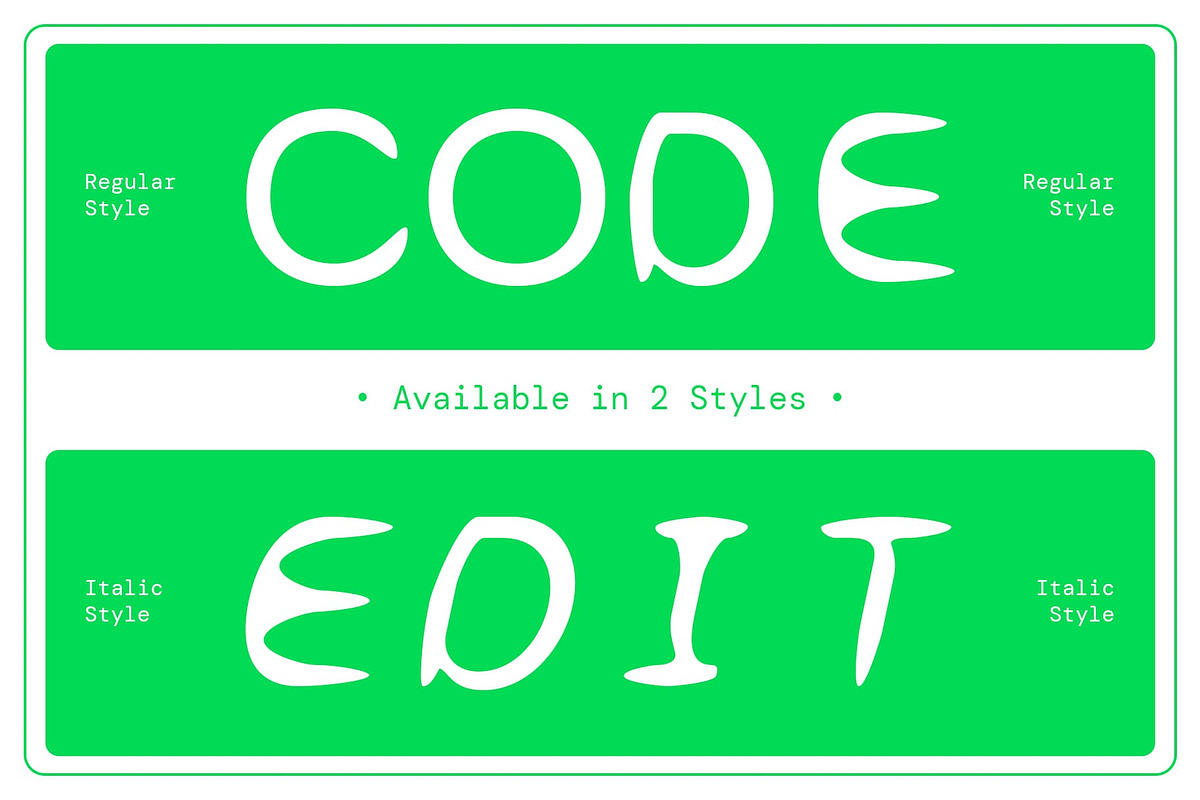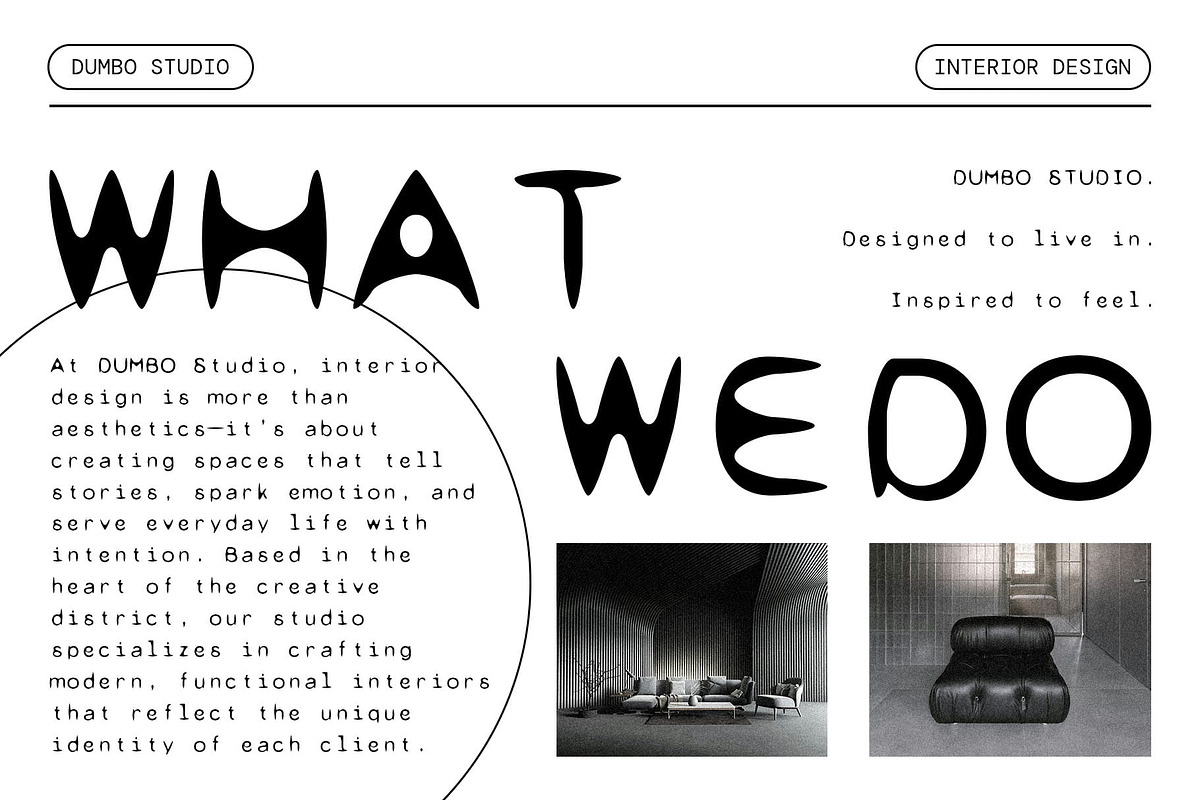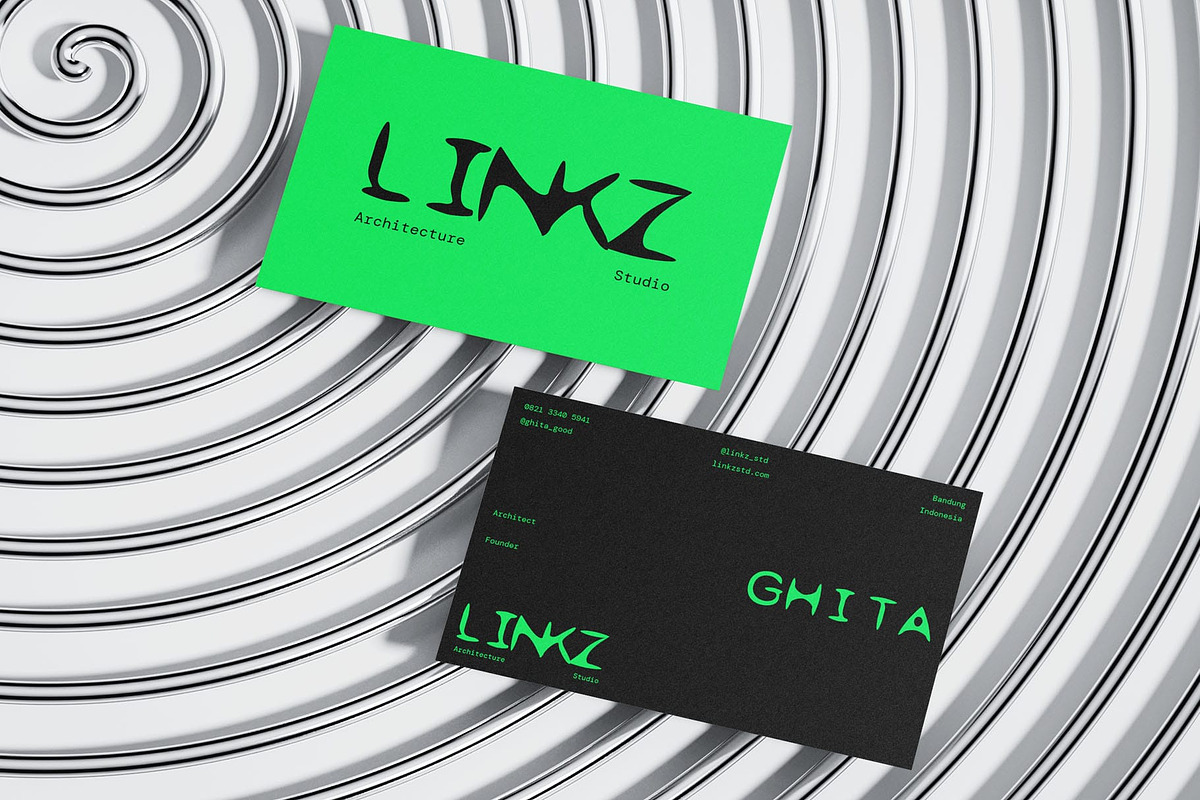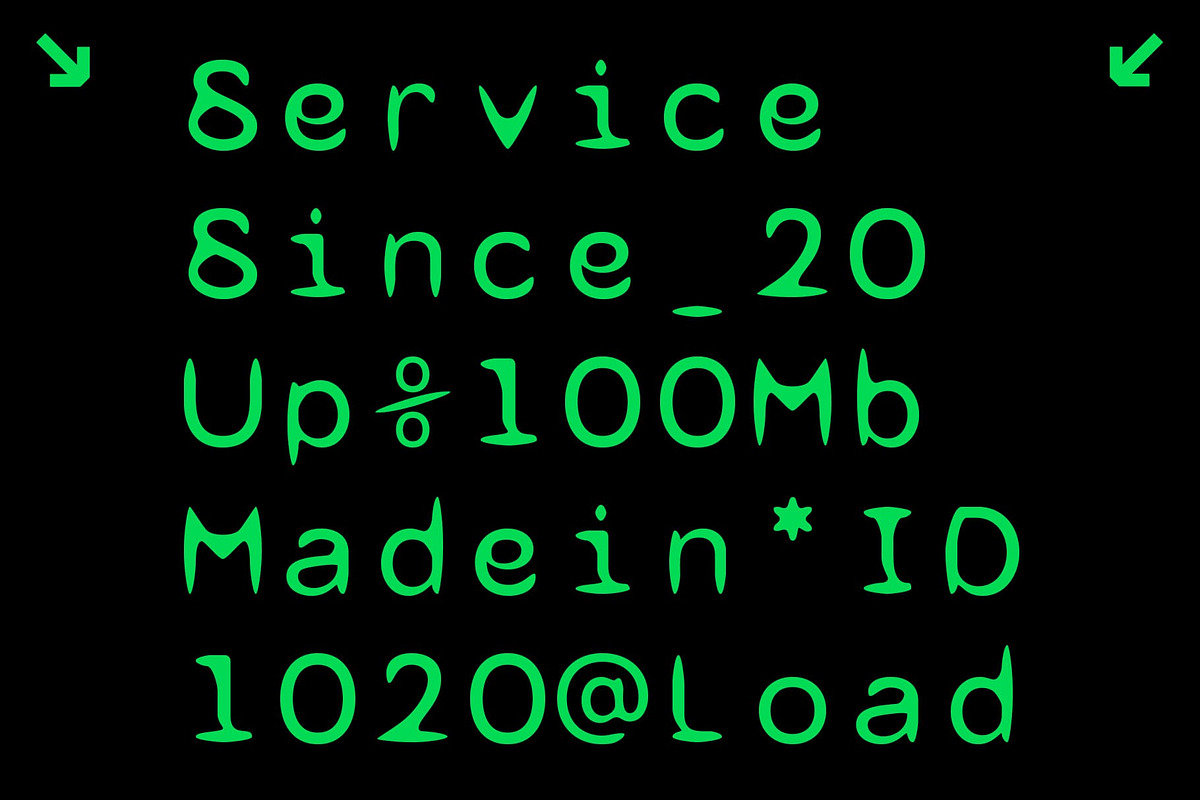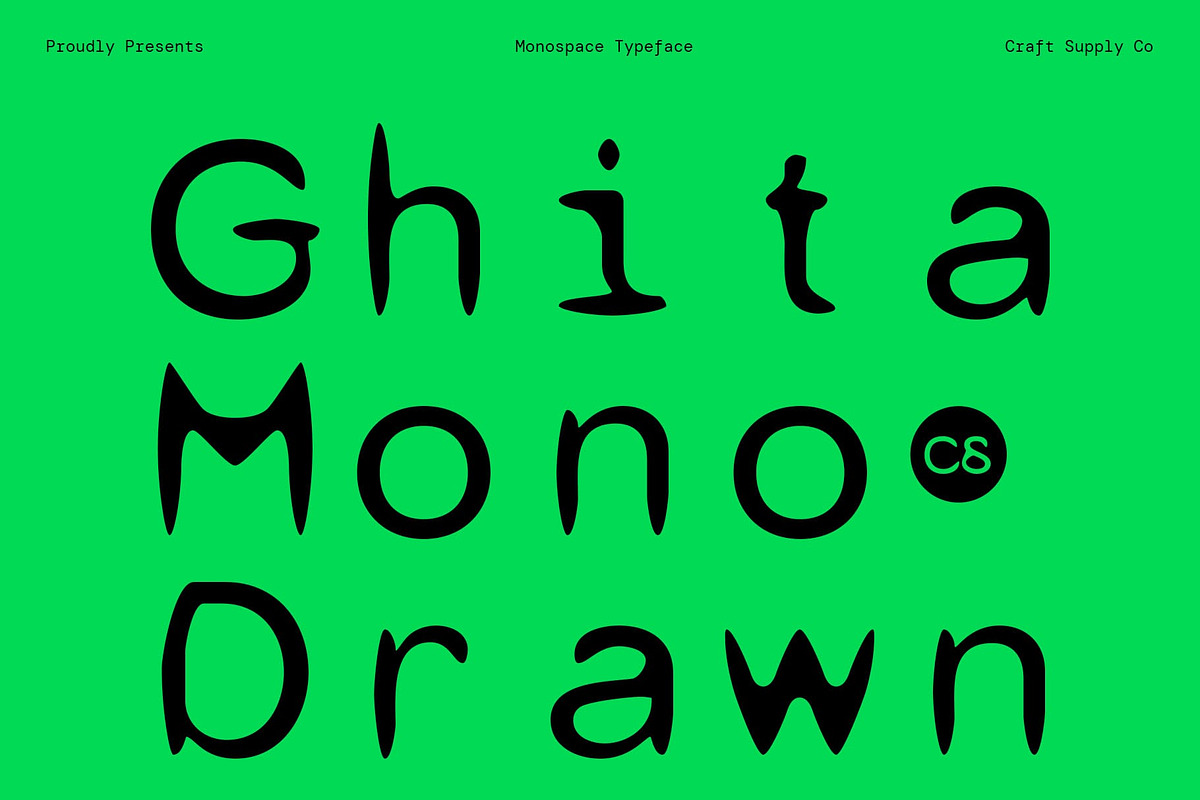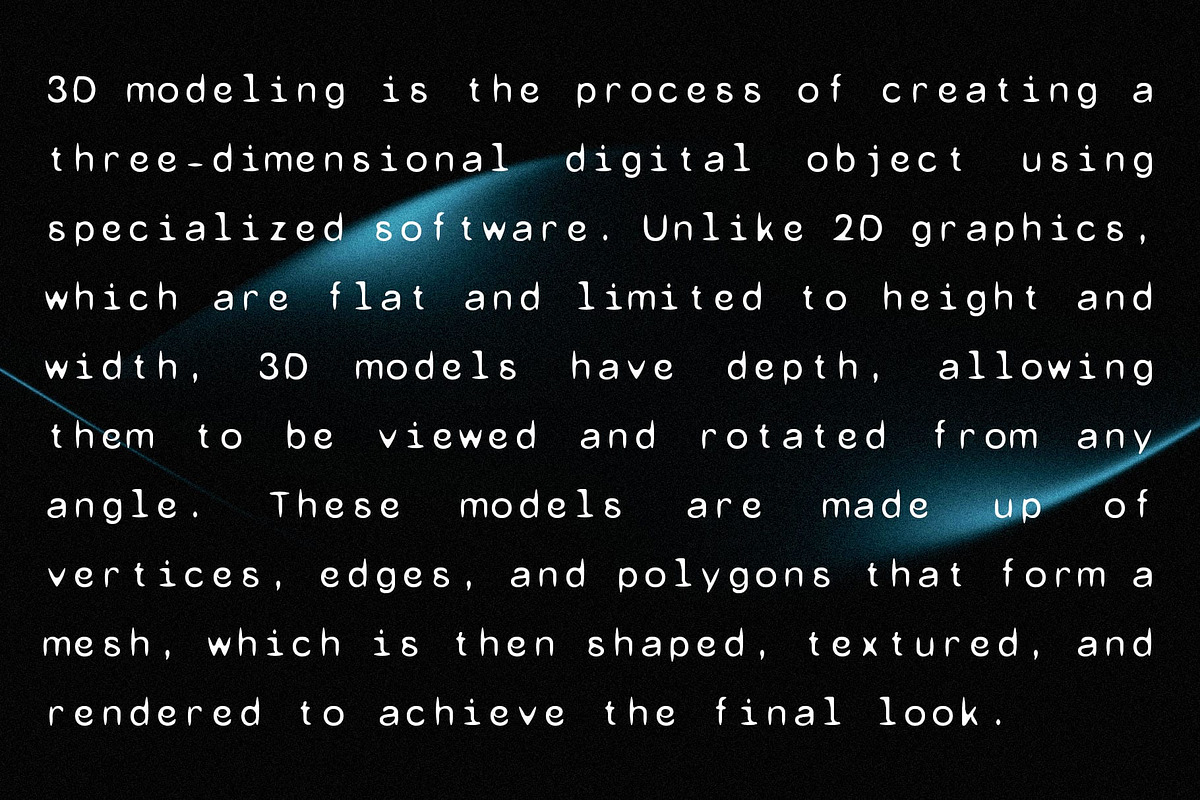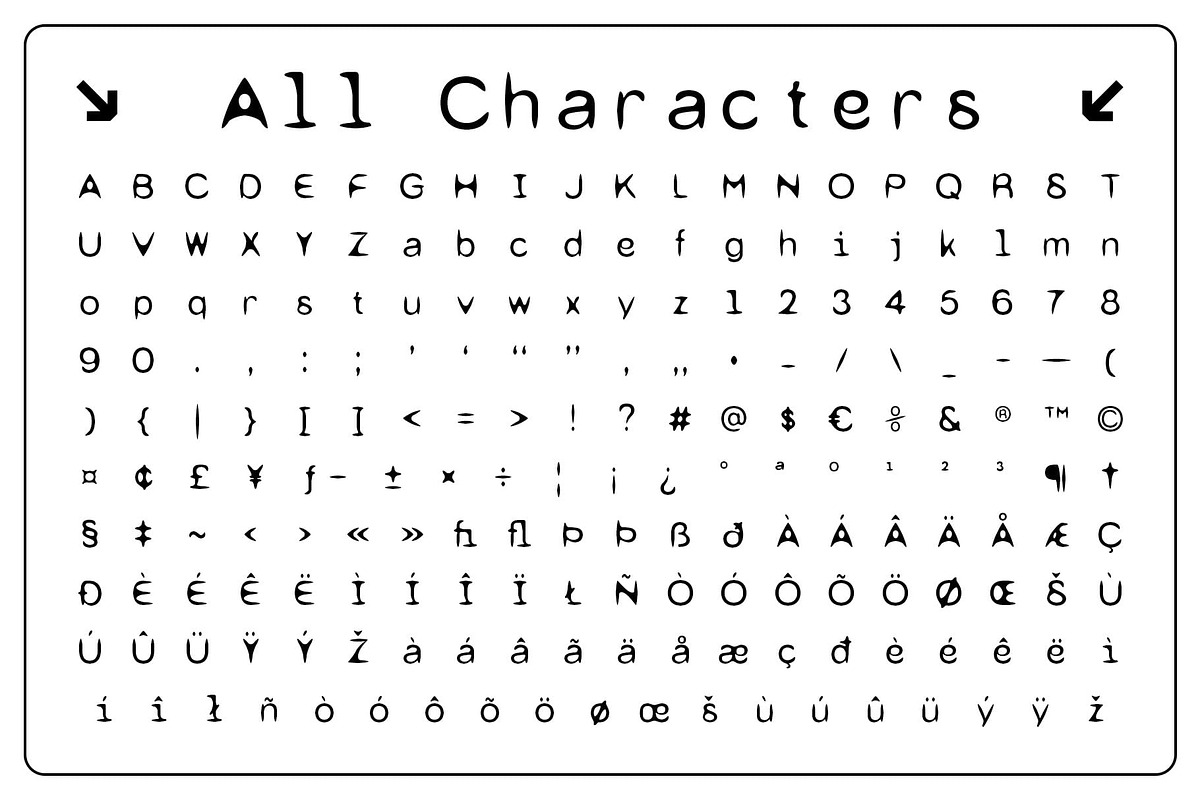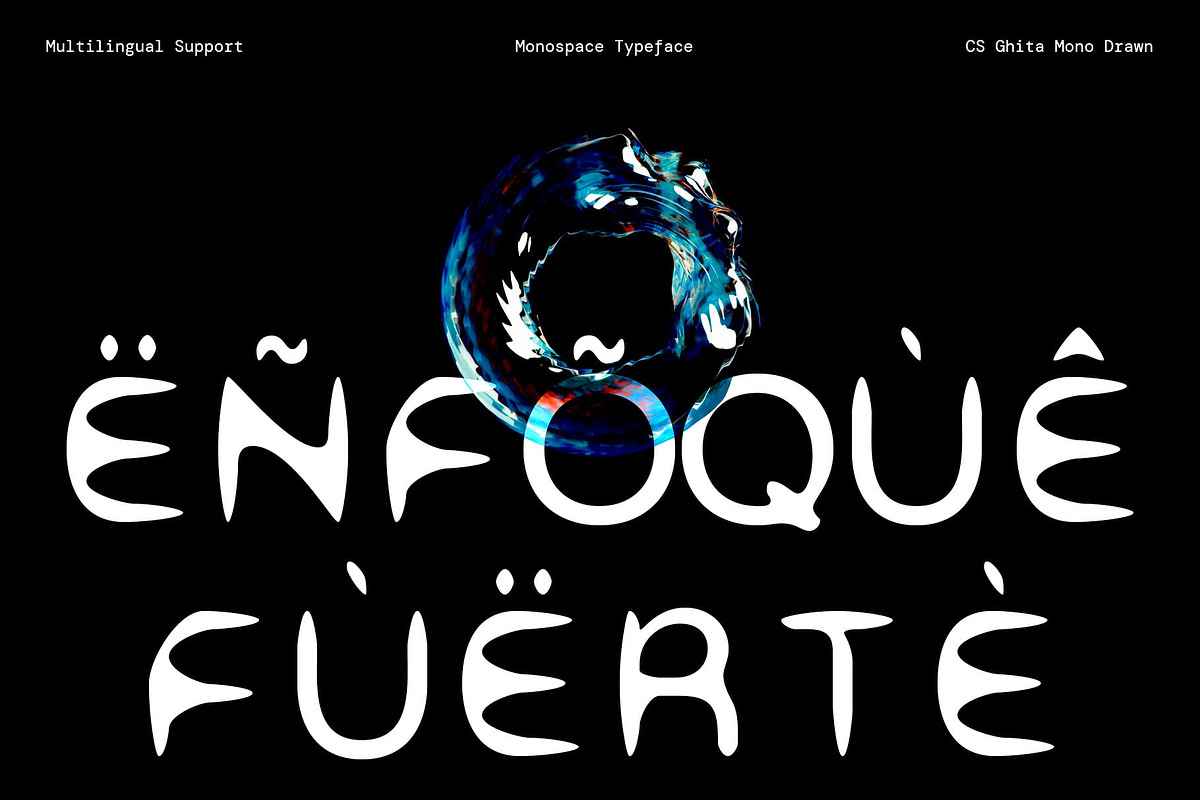
CS Ghita Mono Drawn
CS Ghita Mono Drawn – Modern Monospaced Font with Handcrafted Warmth
Precision Meets Personality This is a modern sans-serif font that features a clean, contemporary monospaced structure, bringing a balance between technical clarity and creative warmth. The addition of a drawn effect introduces a handcrafted, human touch—giving this structured font a distinctly artistic character.
Elegant Structure with Creative Versatility Its monospaced rhythm gives it a balanced, grid-like appearance, ideal for creating a sense of order and consistency. Yet, the subtle irregularities of the drawn effect soften the rigid lines, making it feel more inviting and original. This unique fusion allows the font to feel both precise and approachable.
Ideal for Tech, Editorial, and Branding Projects Perfectly suited for modern branding, creative editorials, coding-inspired visuals, tech-focused layouts, and design projects that require clarity with individuality, this contemporary font delivers both structure and personality. It’s a go-to choice for creatives who want to bring a minimal yet distinctive tone to their designs.
A Unique Take on Functional Typography Whether used in headline treatments, identity systems, or digital interfaces, this stable and minimalistic font brings a refreshing approach to monospaced fonts—adding emotional depth to a format traditionally rooted in function. It’s a font that celebrates form, functionality, and human expression in equal measure.